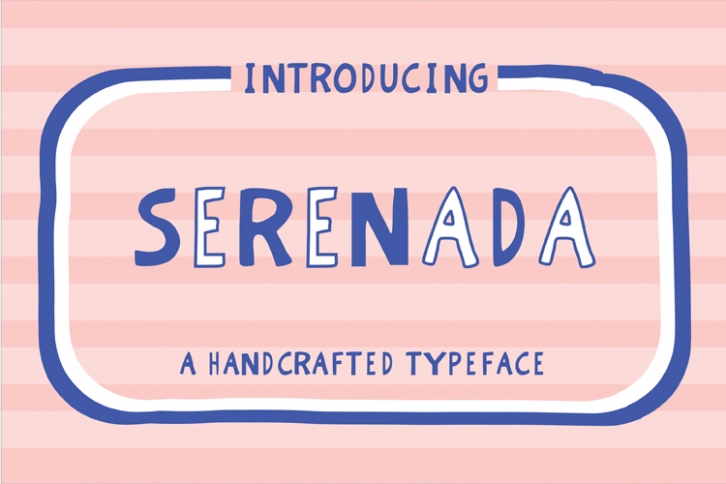
Sereneda is a trendy and unique font with an authentic style. It was designed by Carrtoonz and it's a great choice for creative people who need such a font. It was released on October 17, 2018 and the file size is 13.47 MB. Sereneda will add an organic vibe to any design idea!